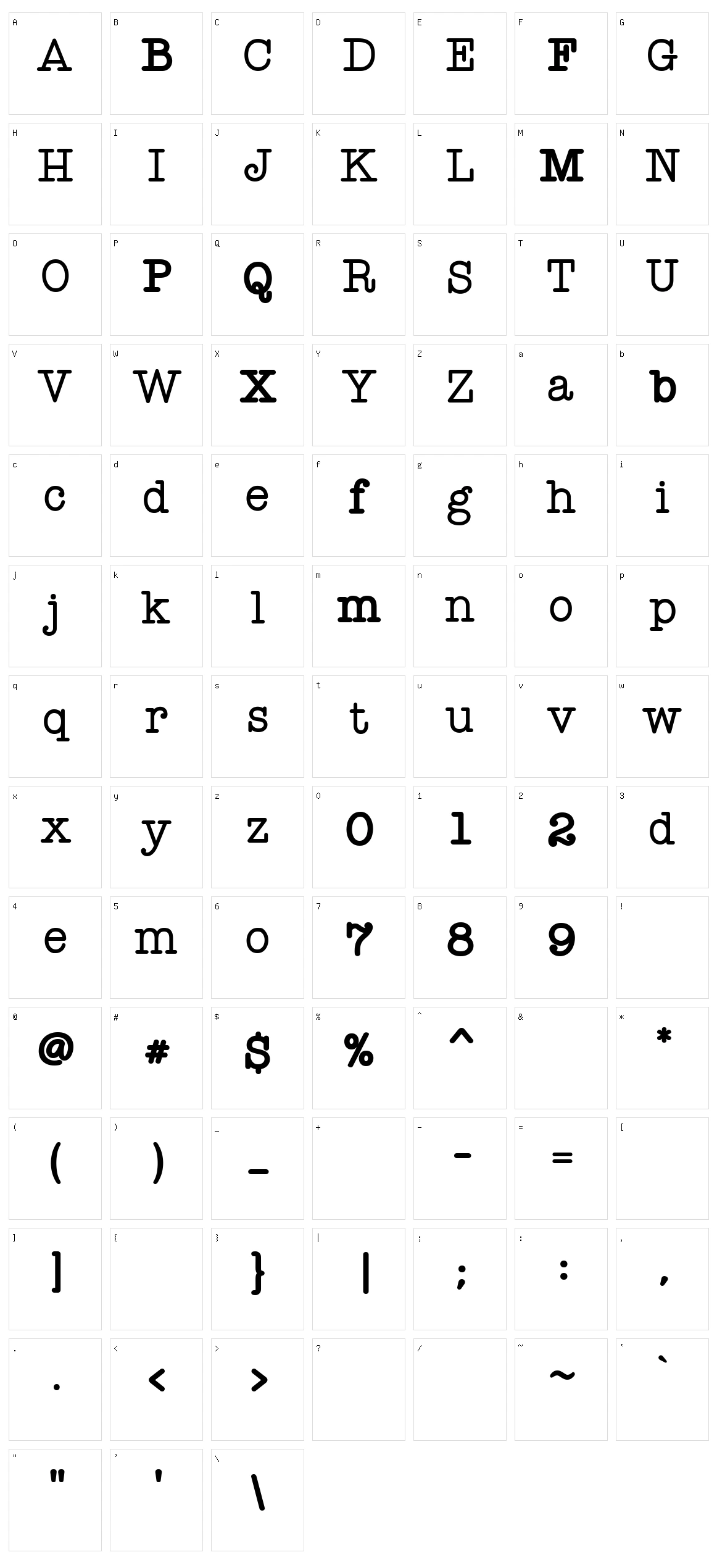
The free font Ketikan is carefully designed by Almaz Studio, showcasing a thoughtful balance of creativity and usability and falls under the Typewriter font style. When you download the ZIP file, it contains only 31.36 KB of font files, making it lightweight and quick to download. Please review the license details below to understand permitted usage and distribution rights. If license information is not available, we recommend using this font for personal projects only or contacting the author directly for commercial usage permissions.